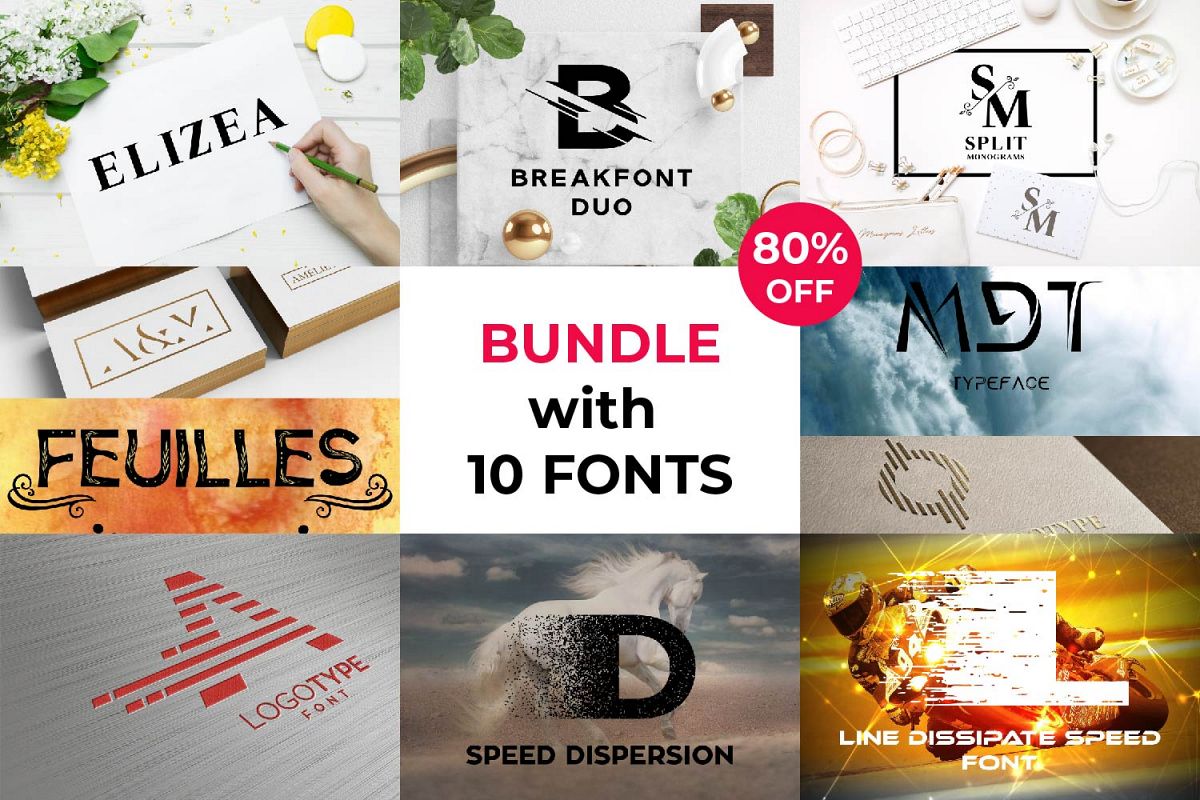
Ultimate Bundle with 10 Fonts
Ultimate Bundle with 10 Fonts by Sintegra includes Amelie Font, Break Font, Elizea Font, Feuilles Font, LineDissipateSpeed Font, Logotype Font, MDT Regular Font, Speed Dispersion Font, Split Monograms Font and Vertical Logotype Font.